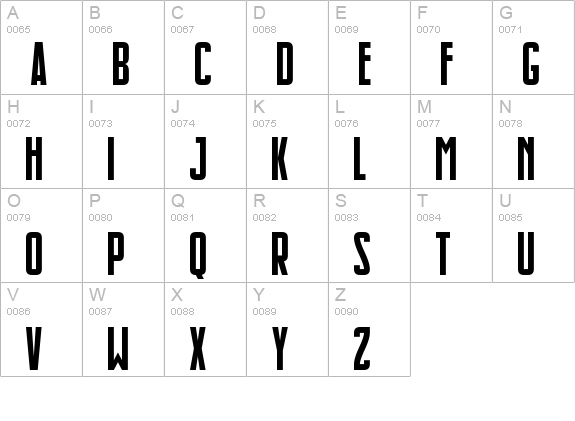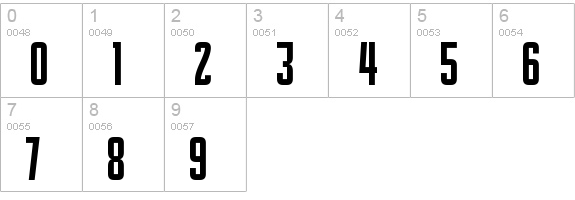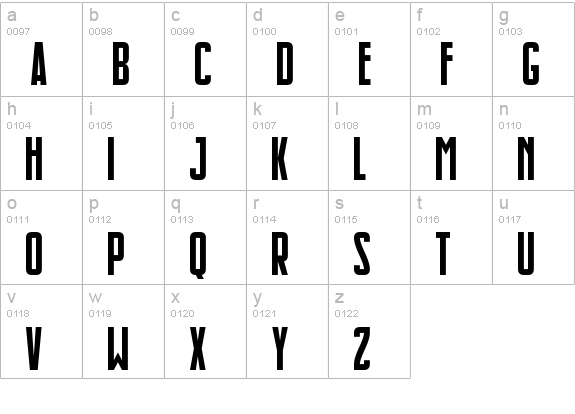
Slimlines Font Details
Slimlines is a donationware font in the General > Sans-Serif category, designed by Darrell Flood. It has been downloaded 243 times and is available for Windows, Mac and Linux.
Introducing Slimlines font, a sleek and modern typeface that exudes elegance and sophistication. With its slender and refined letterforms, Slimlines is perfect for adding a touch of class to any design project. This versatile font is ideal for a wide range of applications, from branding and advertising to invitations and social media graphics.
What sets Slimlines apart is its clean and minimalist design, making it a timeless choice for those seeking a contemporary look. Whether you're creating a logo, heading, or body text, Slimlines will add a touch of refinement to your work.